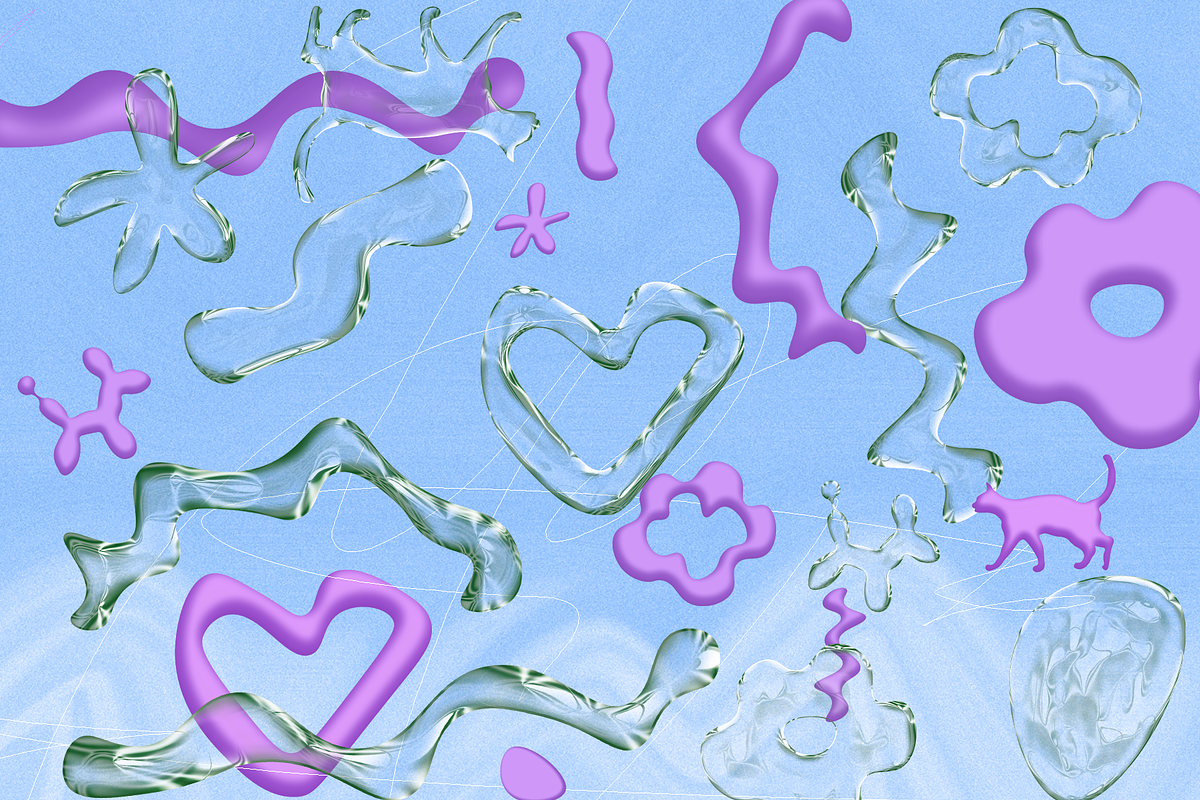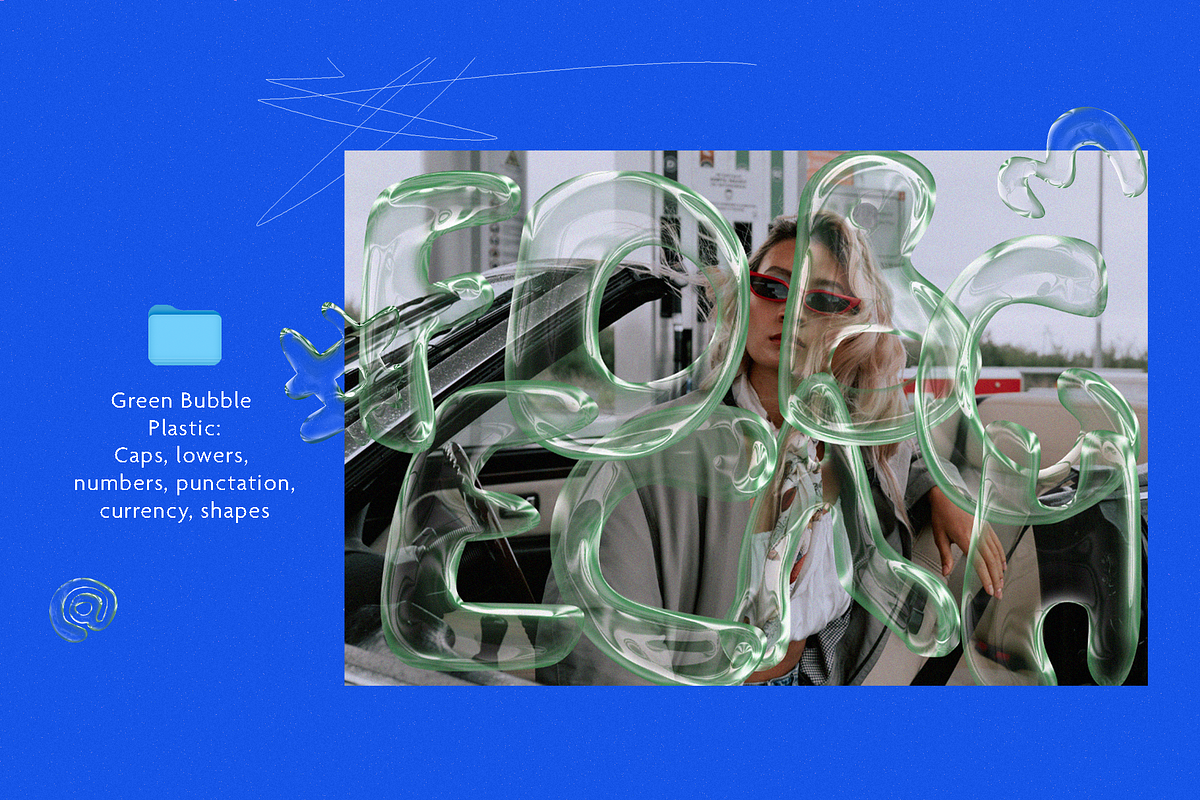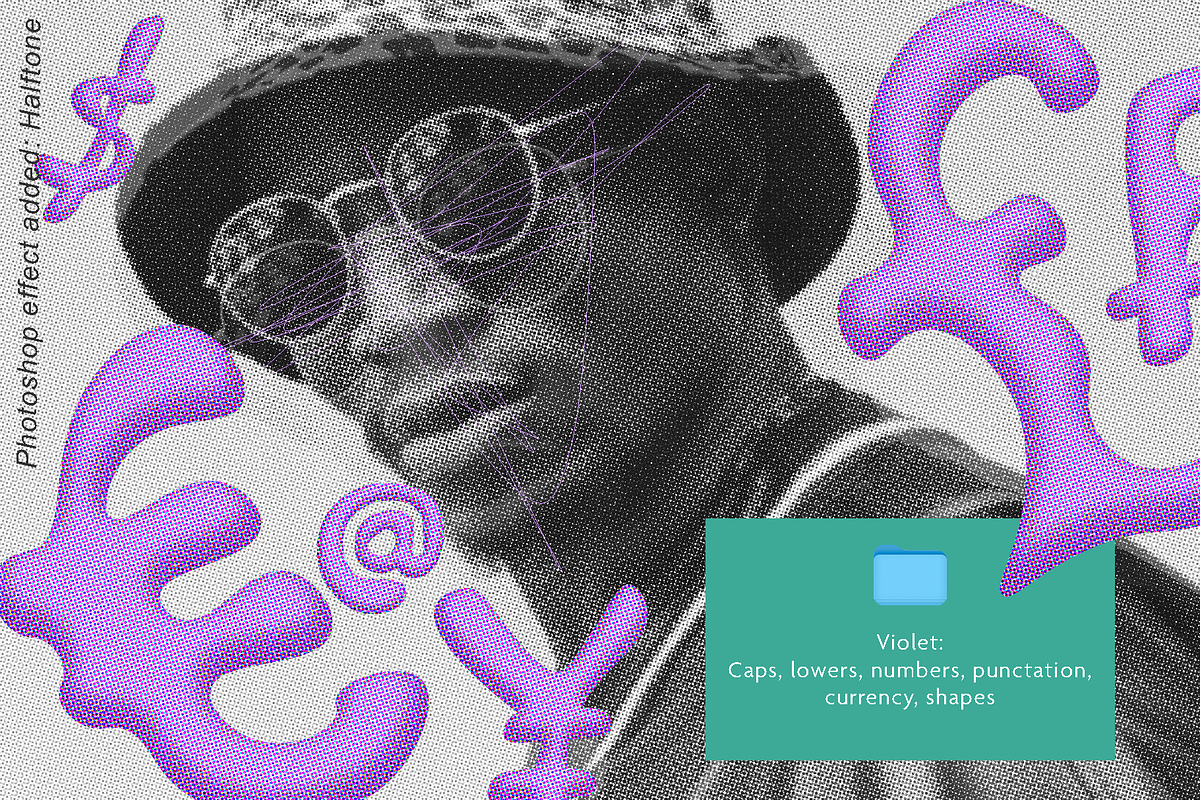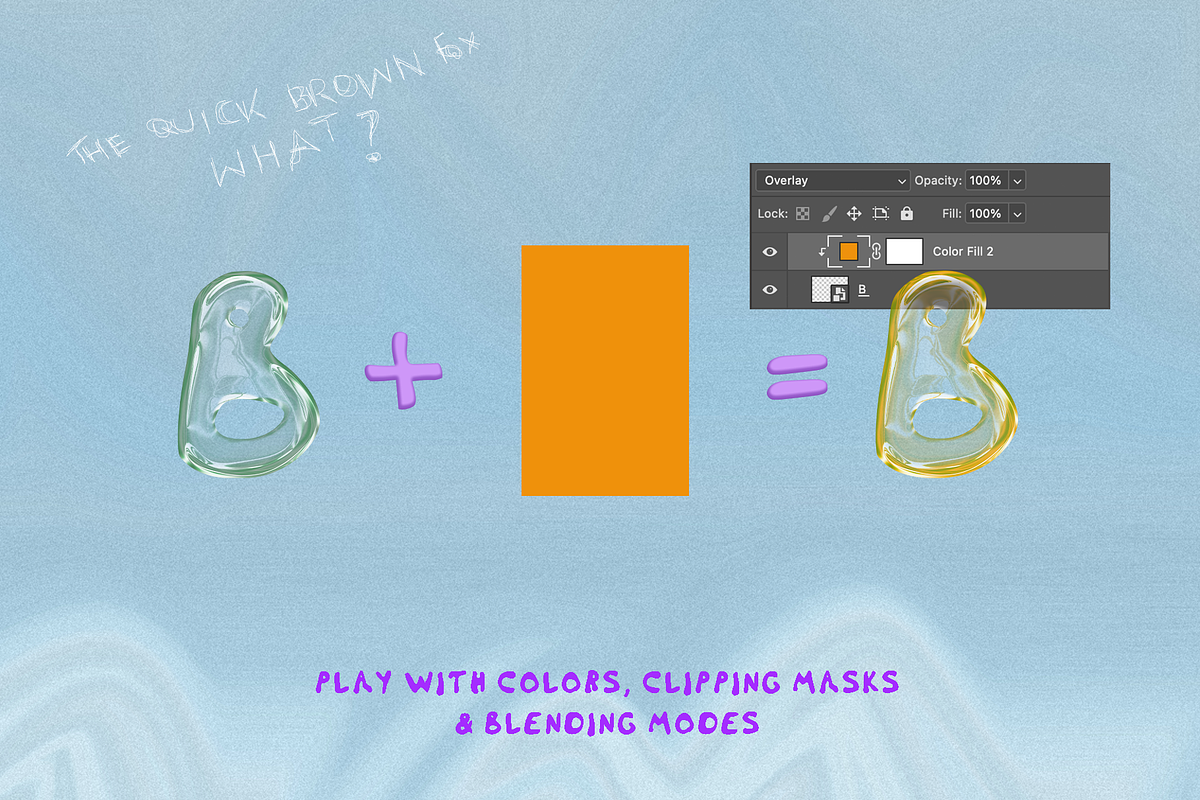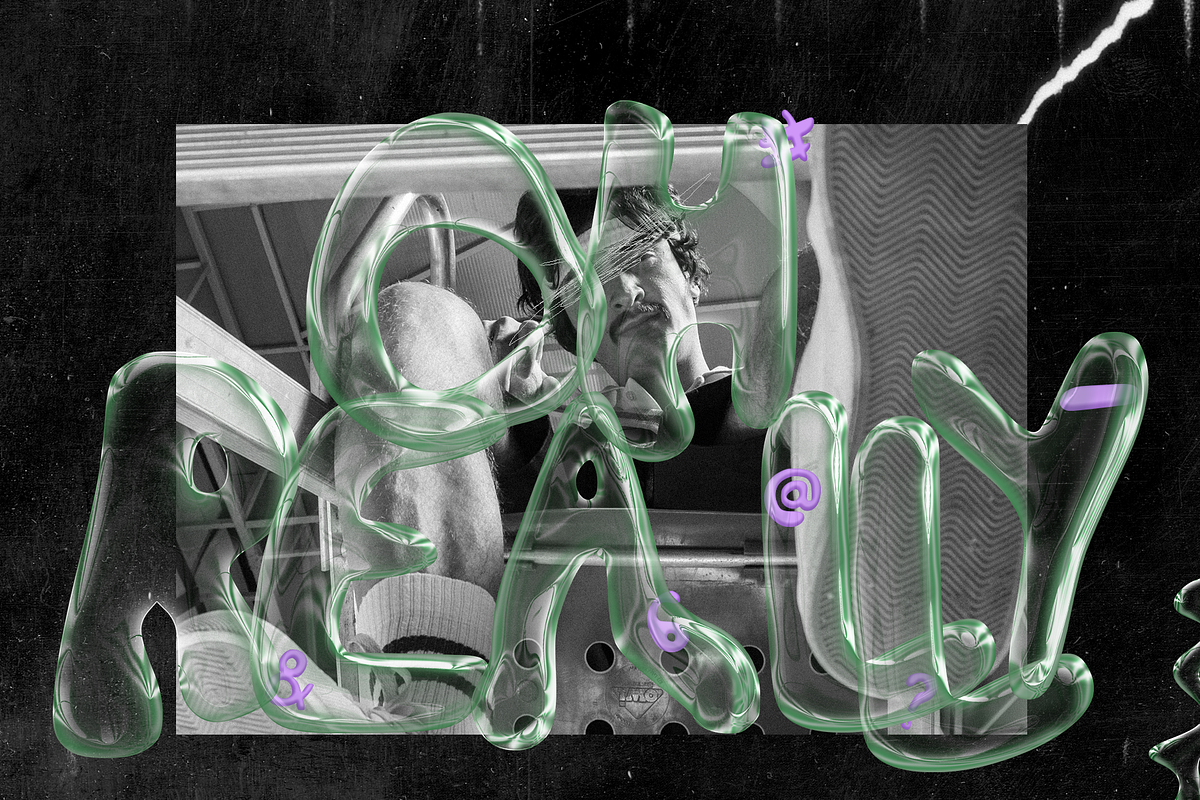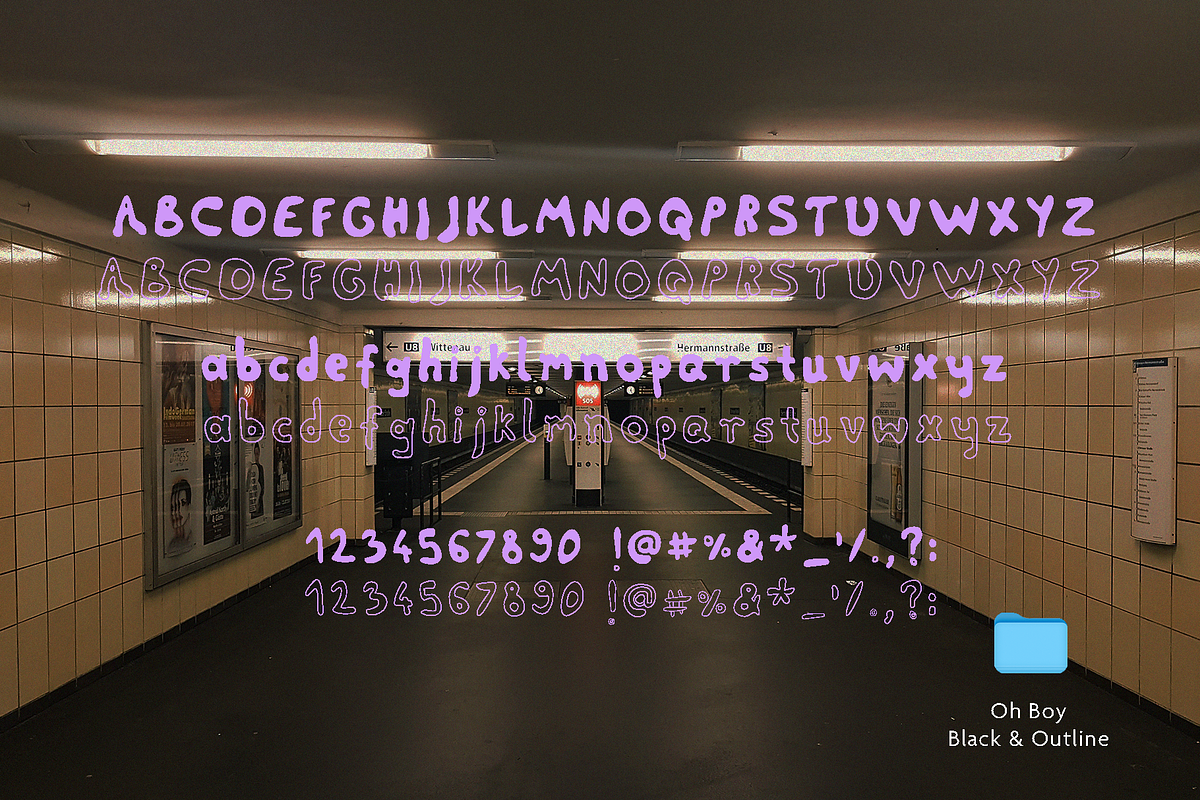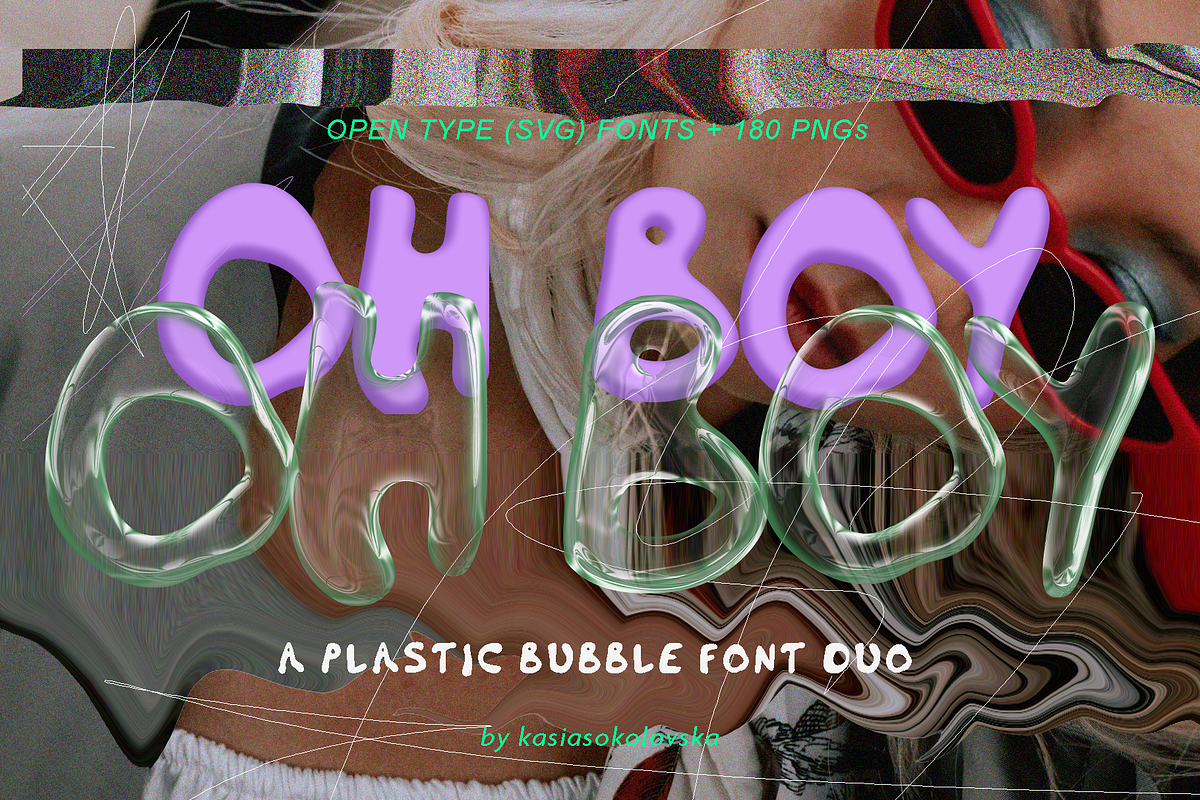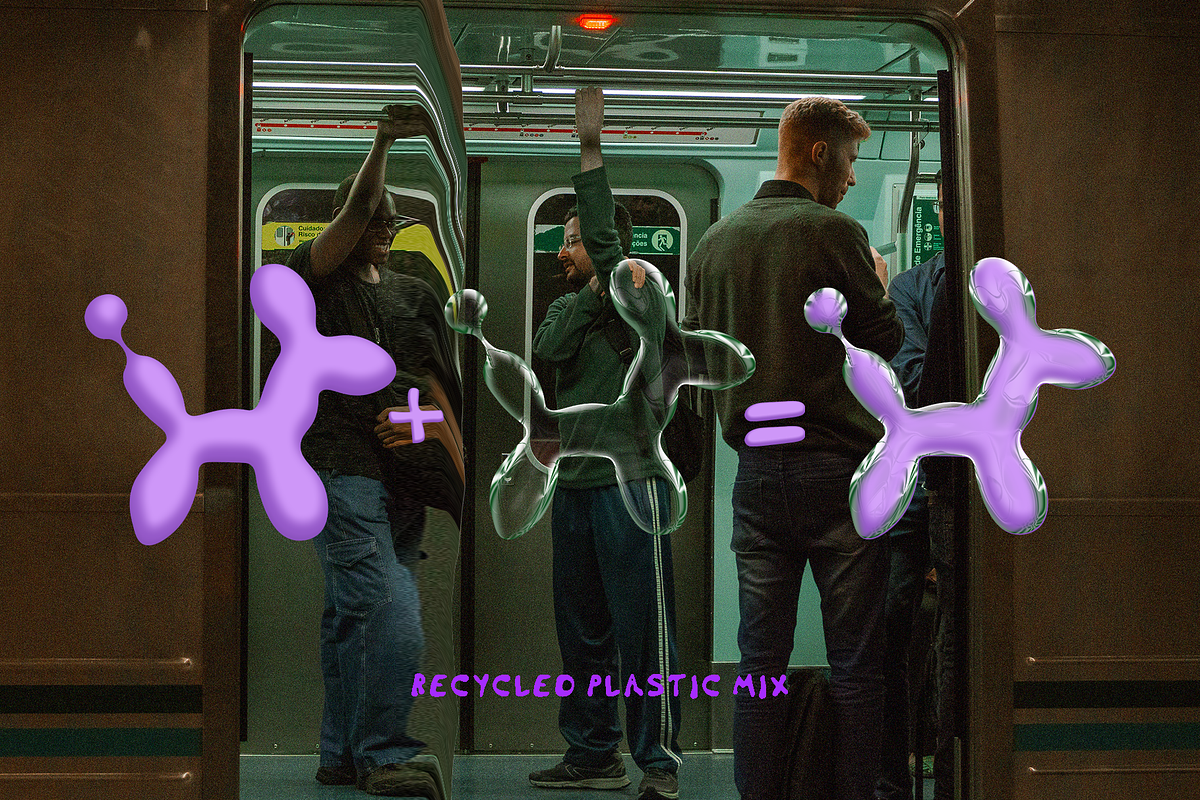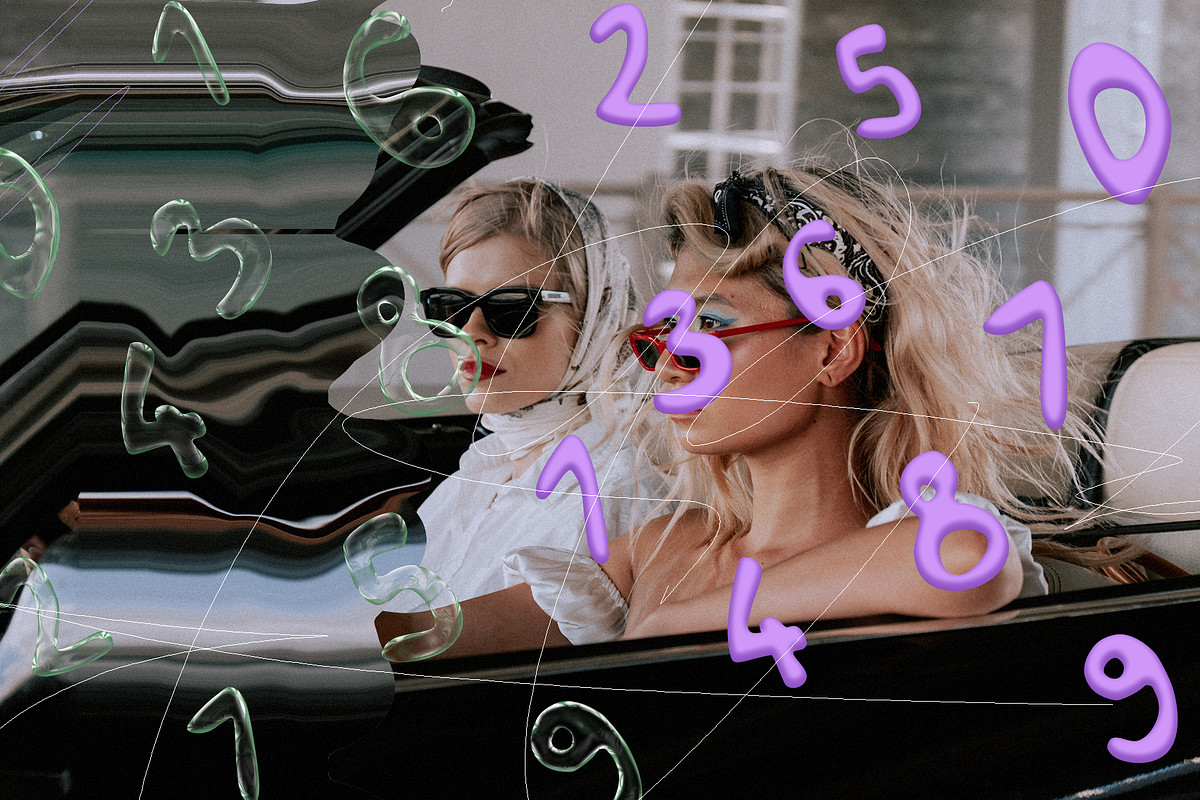
Plastic Bubble Font Duo 3D
Let me introduce my babe - the first font I've ever made. All this green & violet PNGs (over 180 .png) I created separatelly by hand. They are a perfect counterpoint to urban and fashion pictures. 3D effect will give a nice depth to any project. Use in magazines, posters, online or branding.
ps. Green letters are not pure glam bubbles. They are more like plastic bottles. Their transparency may vary, or sometimes contain material dents or distortion which makes them unique.